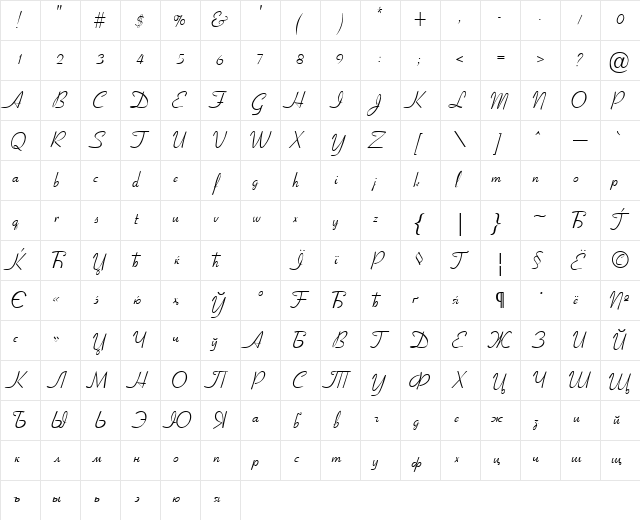
Complete CyrillicRibbon Normal glyph index. Displaying only characters natively supported by CyrillicRibbon Normal font.
CyrillicRibbon is a composed and adaptable typeface that performs quietly and consistently across a wide range of design contexts.